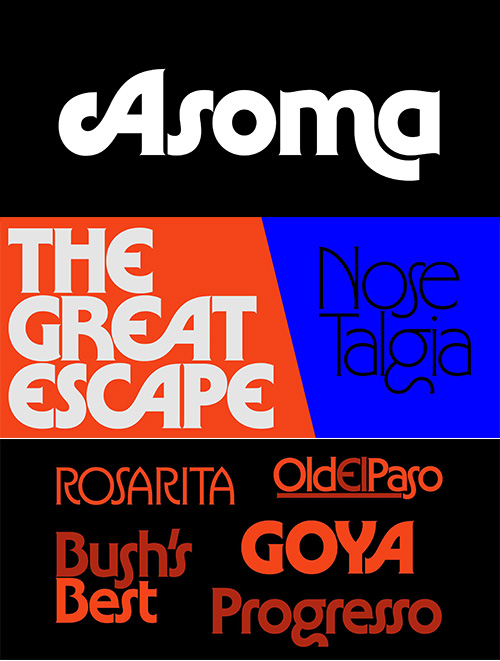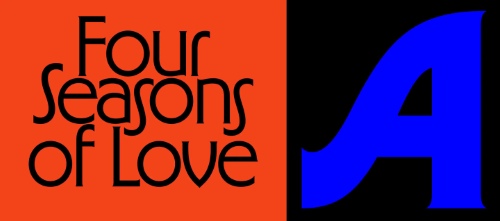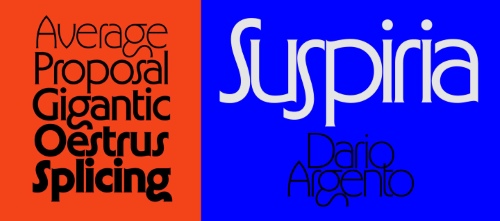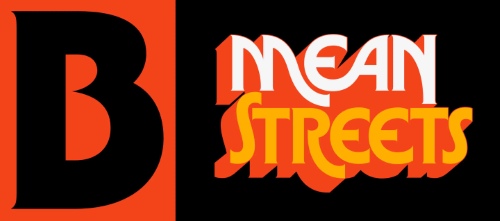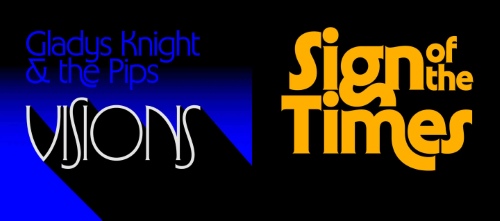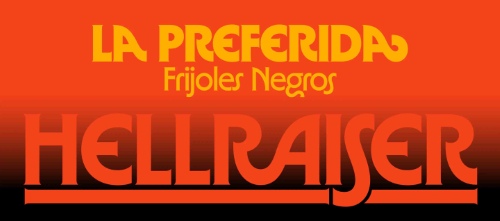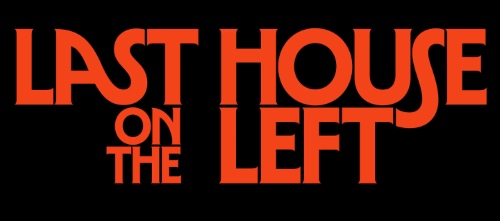
Asoma - 5 Styles Font Family
- Asoma aims to revive the sense of wonder and mystery of 1970’s monoweight typefaces such as ITC Busorama, ITC Serif Gothic, and Marvin. Loosely inspired by its predecessors, Asoma riffs on aesthetics of the past, embedding new shapes and ideas with an offbeat sense of nostalgia. A plethora of ligatures gives you the option to heavily customize headlines, titles and logotypes. Additionally, Asoma includes a full upper and lowercase character set, lining figures, math characters, punctuation, 5 distinct weights and support for Western European, Central European, South Eastern European and South American scripts.